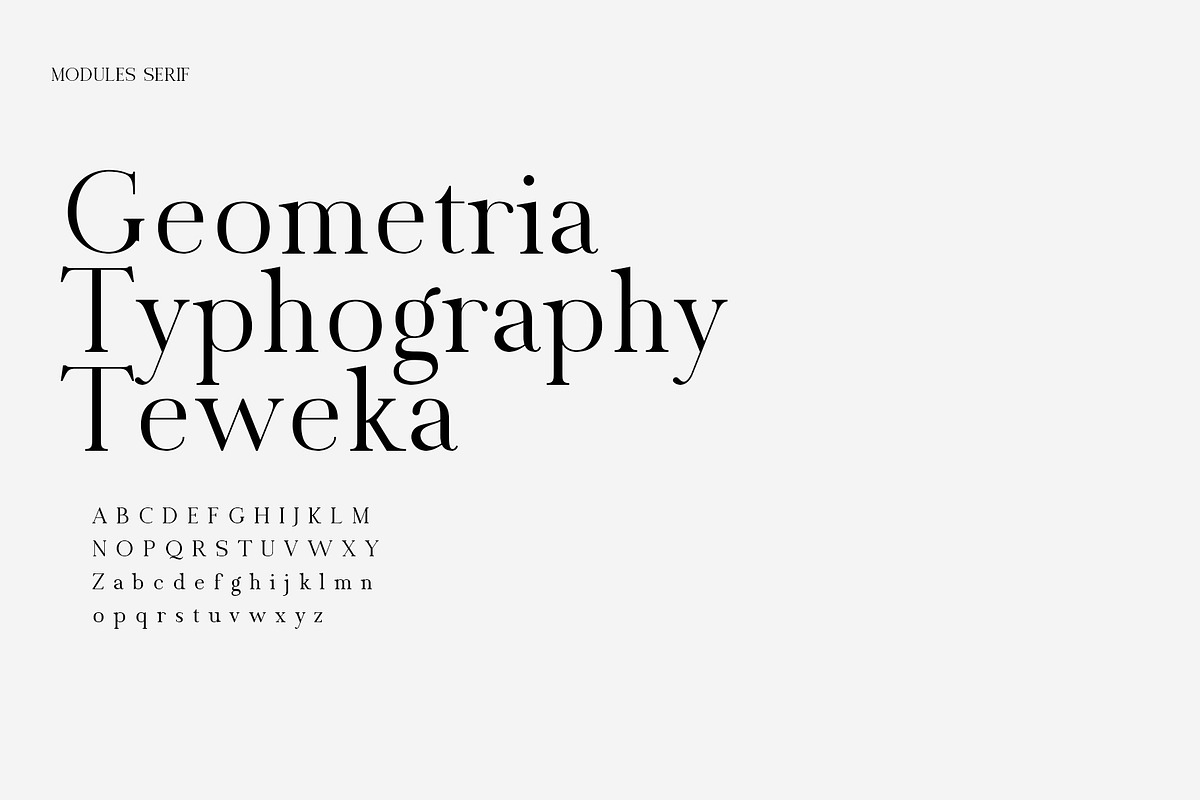
Vinland Serif
Introducing "Vinland" - new with modern and classic curves
This font, Vinland is a very versatile font, covering various types of projects, from bold magazine imagery, wedding invitations, to branding, poster design, and many others.